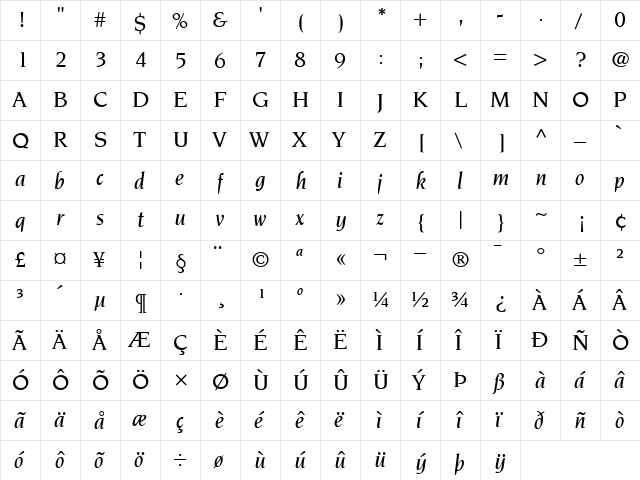
ITCNovarese-Medium MediumItalic
Design Context for ITCNovarese-Medium Typeface
ITCNovarese-Medium is a composed and adaptable typeface that performs quietly and consistently across a wide range of design contexts. Its italic angle brings a sense of urgency and motion to the letterforms.
Pro Tip: Use ITCNovarese-Medium for emphasis, pull quotes, and subheadings where its slanted energy can add rhythm to the layout.